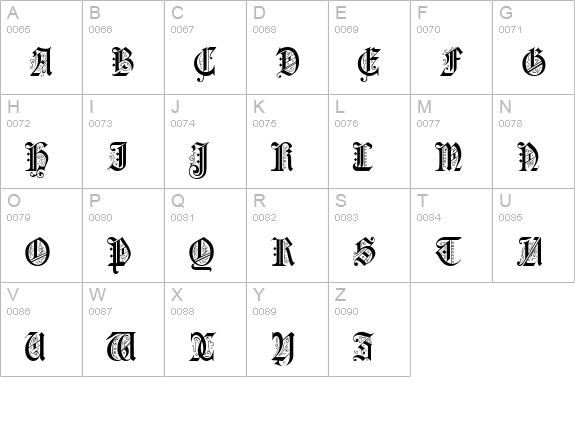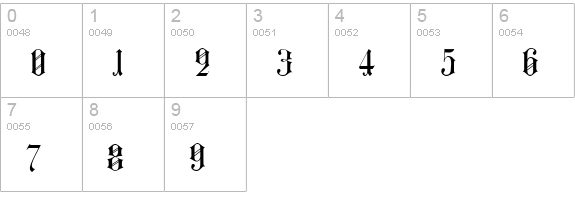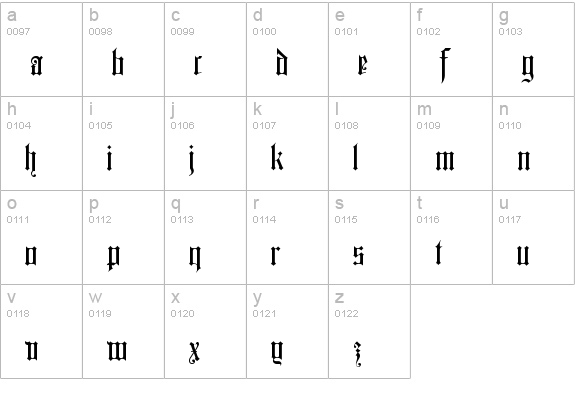
Colchester Black Font Details
Colchester Black is a maximum-weight, dramatic variant in the Colchester typeface family \xE2\x80\x94 well suited to maximum-impact headlines, posters, and packaging.
Colchester Black font is a stunning display typeface that exudes elegance and sophistication. With its bold and sharp letterforms, this font demands attention and makes a powerful statement. Its sleek and refined design is perfect for any project that requires a touch of class and sophistication. Colchester Black font effortlessly combines modernity with a timeless appeal, making it a versatile choice for a wide range of design applications. Whether you're designing a logo, creating eye-catching headlines, or crafting striking posters, this font will elevate your work and leave a lasting impression. One of the standout features of Colchester Black font is its versatility. It can be used in both digital and print mediums, ensuring that your message is consistently conveyed across various platforms. Its legibility and clarity make it suitable for use in both large and small sizes, ensuring that your text remains readable and impactful. And the best part? Colchester Black font is freely available to download at FontsMarket.com. This means that you can easily access this exceptional font and incorporate it into your design projects without any cost. Its availability for free download makes it an excellent choice for designers on a budget or those who simply appreciate the value of quality fonts. So, whether you're a professional designer looking to add a touch of sophistication to your work or a hobbyist seeking a high-quality font, look no further than Colchester Black font. Its refined design, versatility, and availability as a free download make it a must-have font for any creative project. Experience the elegance of Colchester Black font and elevate your design work to new heights.